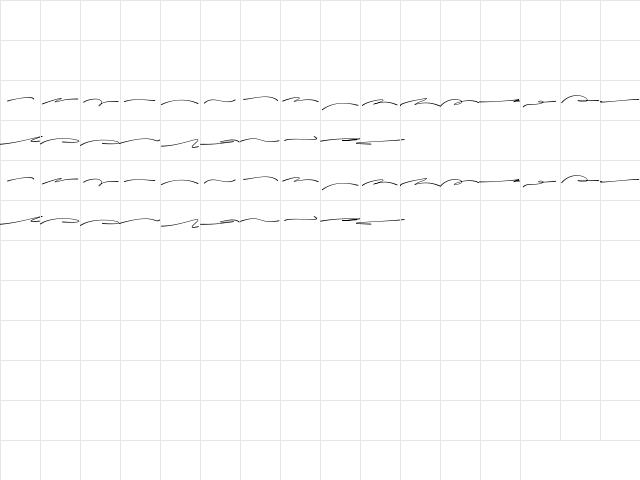
SwashPersonalUseOnly Regular
| Foundry | Zul Arizal |
| Designer | Zul Arizal |
Design Context for SwashPersonalUseOnly Typeface
SwashPersonalUseOnly brings a calligraphic fluidity to the page — its connecting strokes and expressive curves give it an unmistakably human quality.